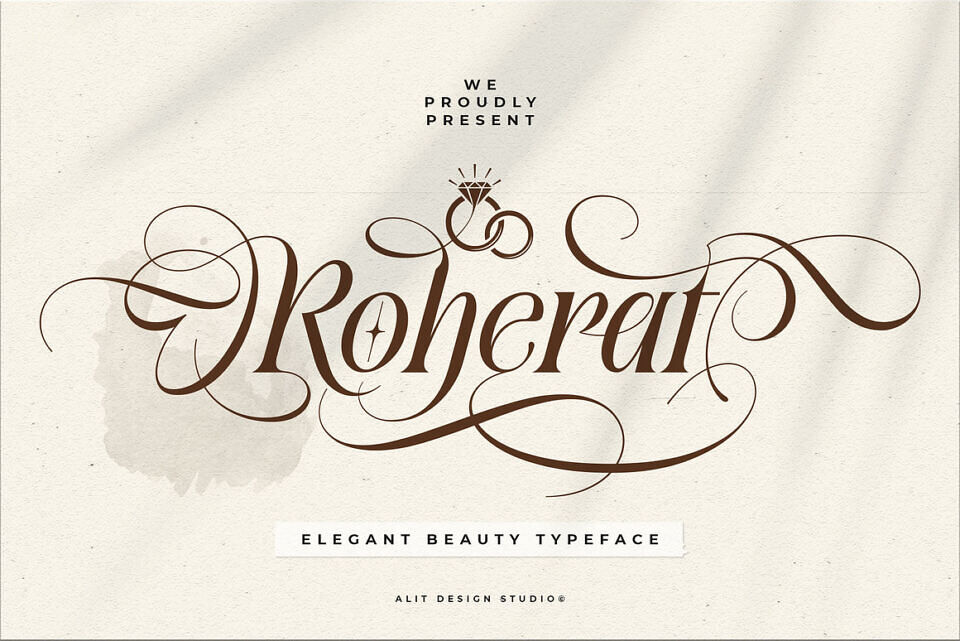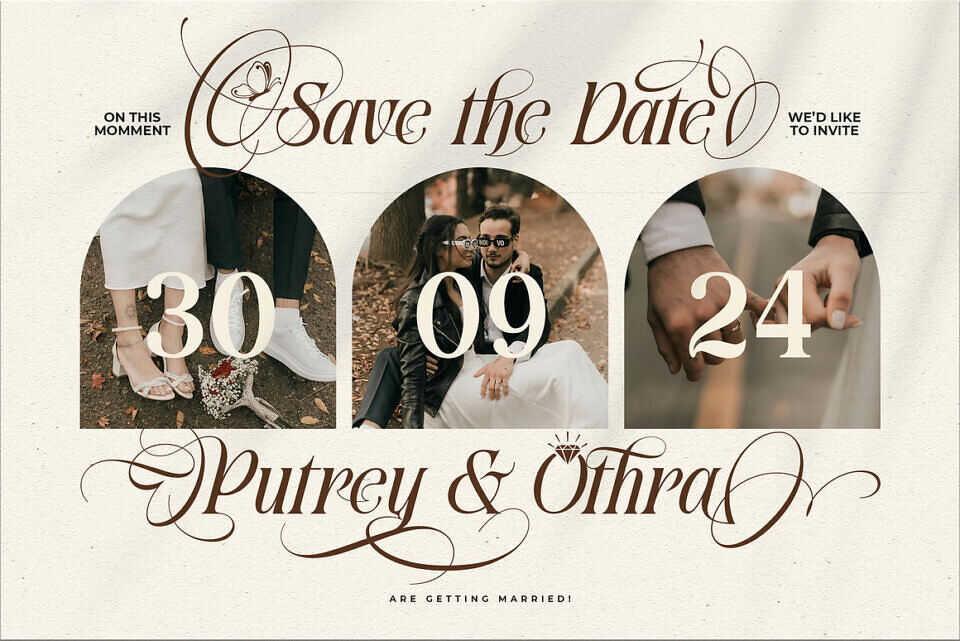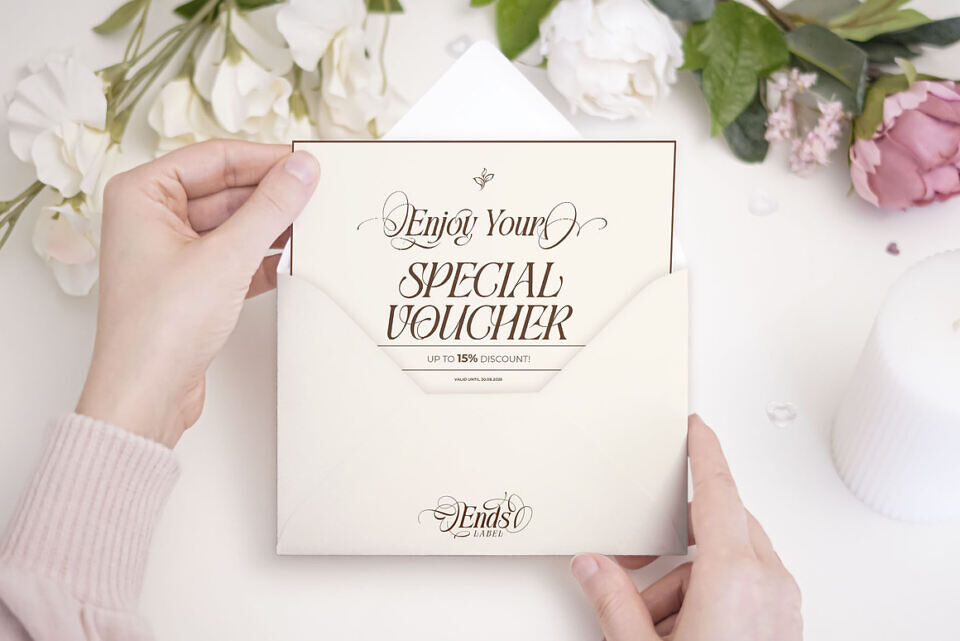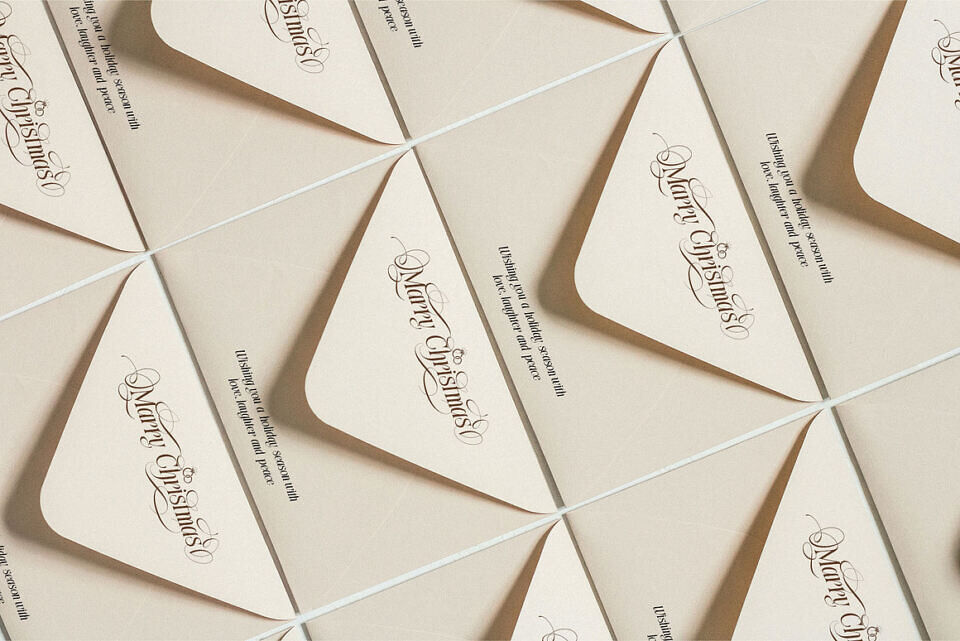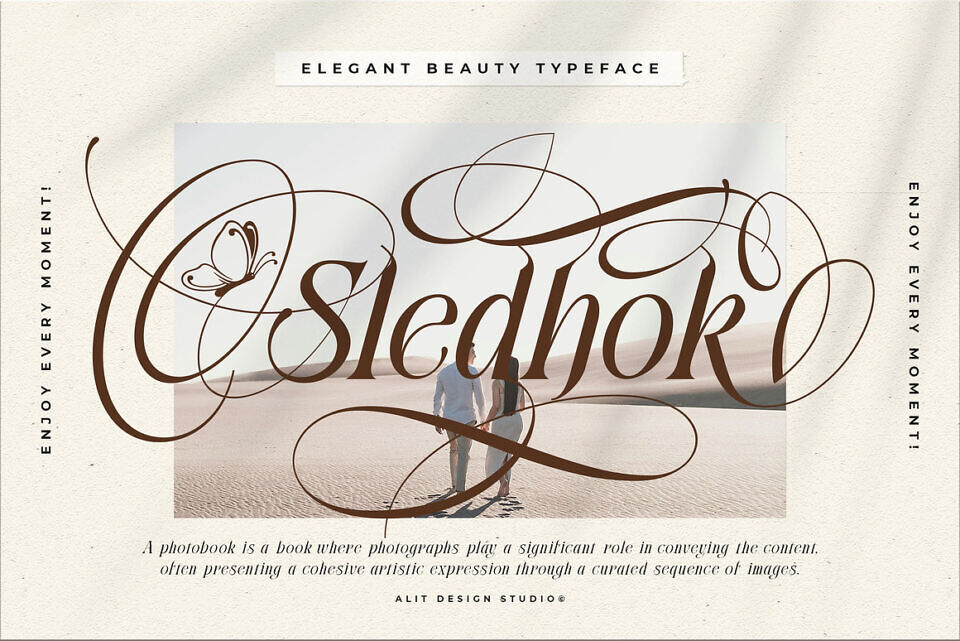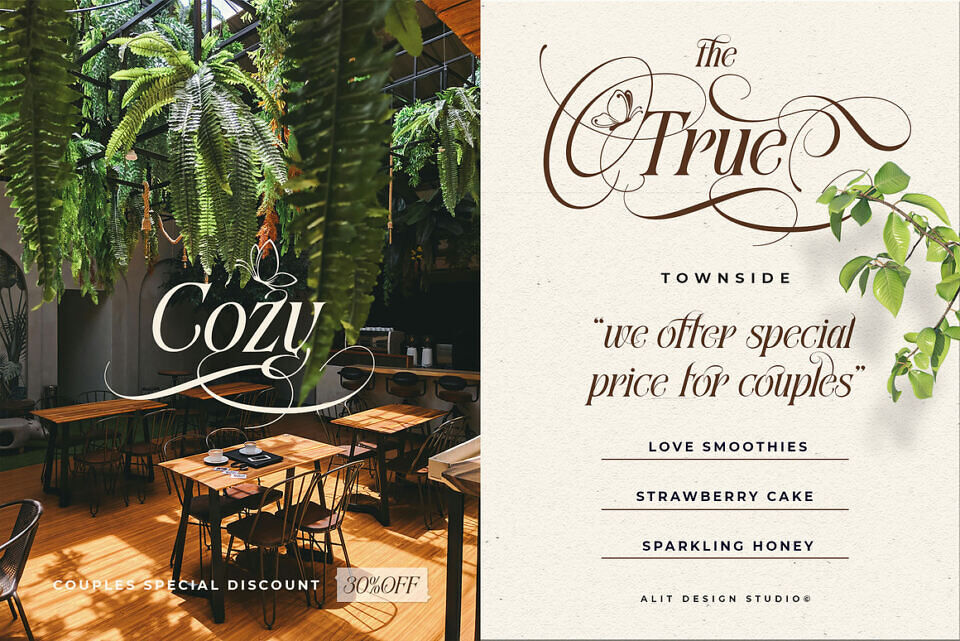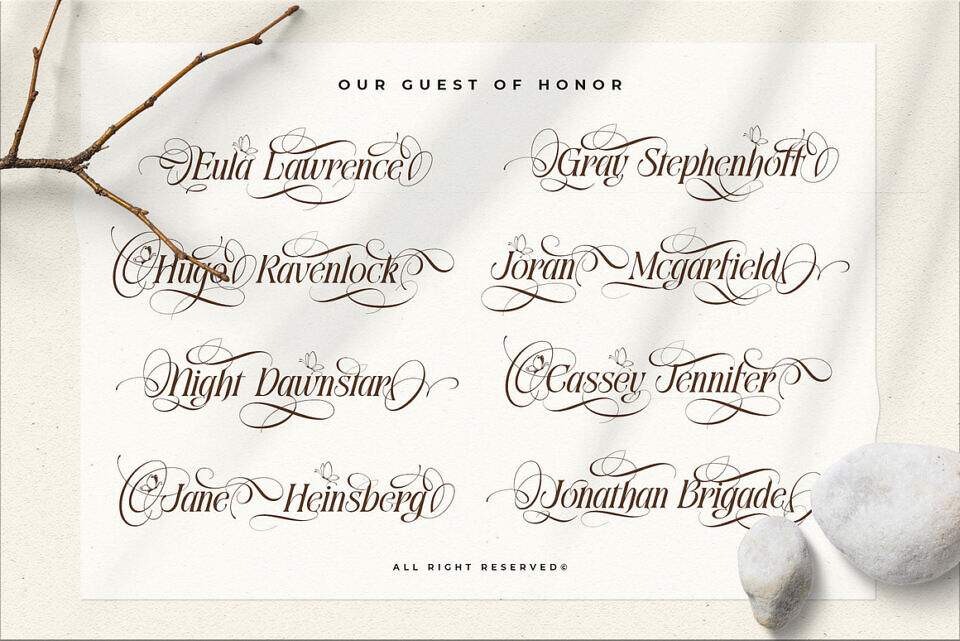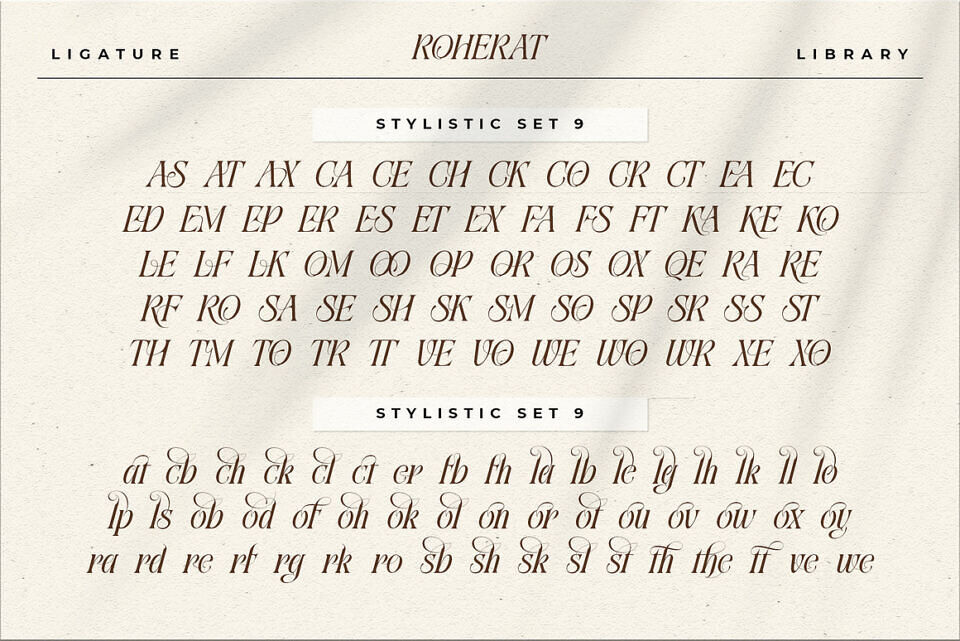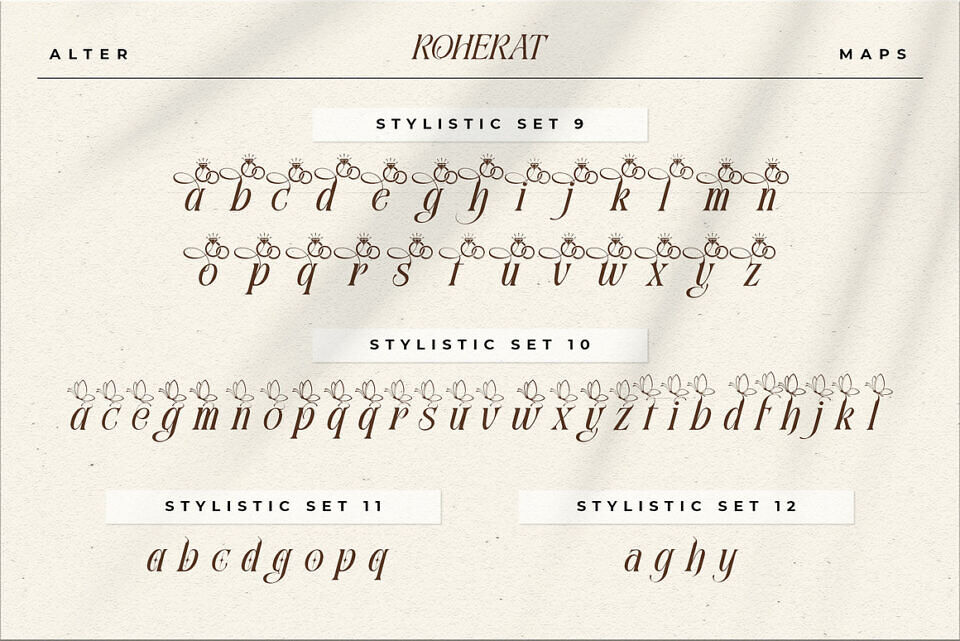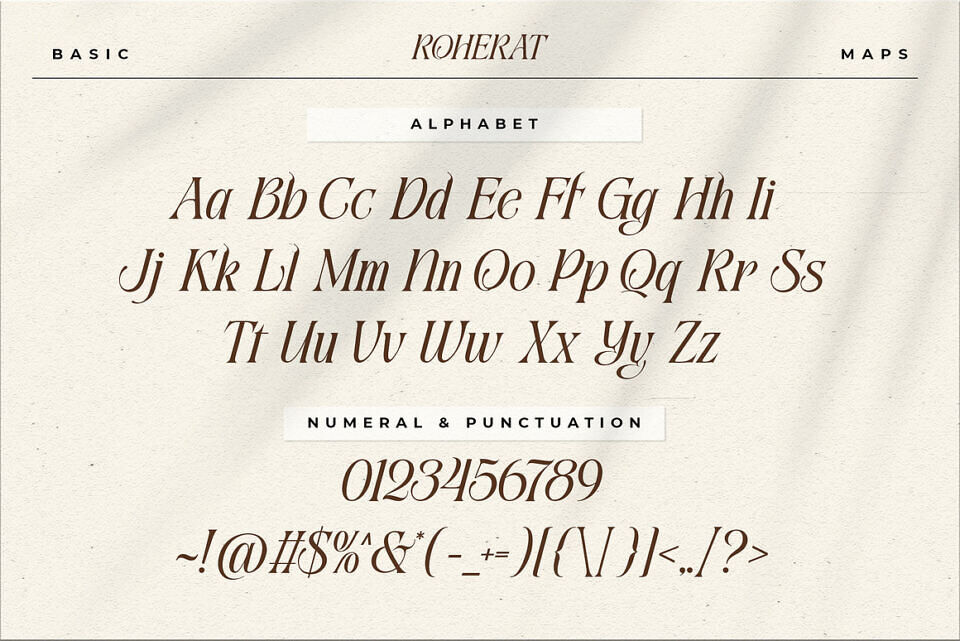
Step into a world where timeless sophistication meets graceful expression with Roherat Typeface, a groundbreaking serif font meticulously designed to elevate your creative projects. Roherat is not merely a typeface; it’s a meticulously crafted fusion, where the structured authority of traditional serifs seamlessly intertwines with the organic, fluid beauty of handwritten script-like swashes.
The Distinctive Fusion: Serif Meets Script At its heart, Roherat Typeface masterfully bridges two distinct typographic worlds. The foundational letterforms are rooted in a classic serif design, boasting clean lines, balanced proportions, and a refined presence that ensures clarity and legibility. These robust and elegant serifs provide a strong, dependable backbone, making Roherat ideal for substantial body text or prominent headlines where readability is paramount.